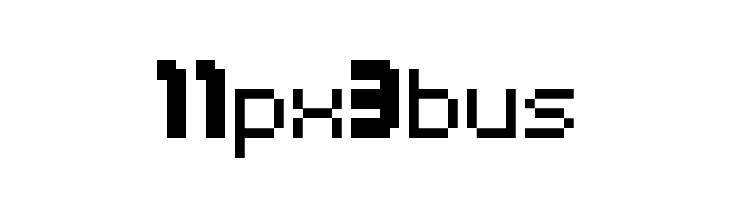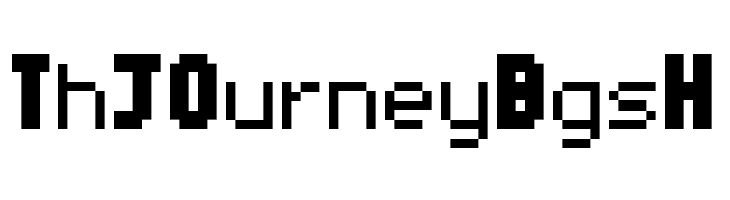
( 010Bus )
A bold, pixelated font with a retro digital aesthetic.
( 010Bus )
A pixelated, retro-style font with a digital, geometric appearance.
( 11th Floor - formerly www.xs4all.nl/~buro )
A pixelated, retro-style font with a digital, geometric appearance.